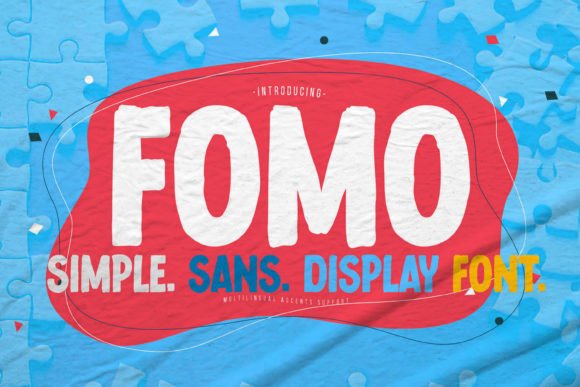
The Power of Fomo: A Modern Font for Bold Branding
In the ever-evolving world of design and branding, typography plays a crucial role in shaping how a brand is perceived. Among the many fonts available, Fomo has emerged as a standout choice for professionals, creators, and entrepreneurs who seek a modern, versatile, and impactful typeface. With its simple yet bold sans-serif style, Fomo offers a unique aesthetic that aligns with contemporary design trends while maintaining a strong visual presence.
As businesses and creatives continue to prioritize visual identity in their branding efforts, the demand for distinctive and functional fonts has never been higher. Fomo not only meets this demand but also sets a new standard for what a modern font can achieve. Its clean lines, balanced proportions, and striking character set make it an ideal choice for a wide range of applications—from logos and posters to business cards and digital content.
What Is Fomo?
Fomo is more than just a font; it's a design statement. Developed with a focus on clarity and impact, Fomo combines the simplicity of a sans-serif typeface with a bold and confident personality. This makes it particularly well-suited for projects that require a strong visual identity without sacrificing readability.
The name "Fomo" itself is a nod to the concept of fear of missing out, a term that has become increasingly relevant in today’s fast-paced digital landscape. While the font is not directly related to this concept, its name reflects the urgency and immediacy that modern audiences often seek in visual communication. In this way, Fomo serves as a metaphor for the need to stand out and make an impression in a crowded market.
Why Fomo Fits Into Modern Design Trends
Typography is a key element of design, and as the industry evolves, so do the preferences of designers and brands. The rise of minimalism, the emphasis on clean aesthetics, and the growing importance of digital-first design have all contributed to the popularity of fonts like Fomo. These trends reflect a broader shift toward simplicity, clarity, and functionality in visual communication.
Fomo aligns perfectly with these trends. Its straightforward design ensures that it works well across various mediums, from print to digital. Whether used in a logo, a website header, or a social media post, Fomo maintains its visual integrity and impact. This versatility makes it a valuable asset for designers looking to create cohesive and professional-looking projects.
Moreover, the font's boldness gives it a sense of authority and confidence—qualities that are highly sought after in branding. In a world where first impressions matter, a font like Fomo can help a brand establish a strong and memorable presence.
How Fomo Meets Changing Needs and Preferences
The design industry is constantly evolving, and with it, the needs and expectations of both designers and end-users. Today’s audiences are more discerning, and they expect visual content that is not only aesthetically pleasing but also easy to read and understand. This shift has led to a greater emphasis on legibility, accessibility, and adaptability in typography.
Fomo addresses these needs by offering a font that is both visually striking and functionally sound. Its clean, uncluttered design ensures that it remains readable even at smaller sizes, making it suitable for a wide range of applications. Additionally, its bold weight provides a sense of prominence, which is essential for headlines, titles, and other attention-grabbing elements.
Another factor contributing to Fomo’s relevance is its ability to adapt to different contexts. Whether used in a high-energy marketing campaign, a sleek product packaging design, or a professional business document, Fomo maintains its visual consistency and impact. This adaptability makes it a go-to choice for designers who want to maintain a cohesive look across multiple platforms and formats.
Practical Applications of Fomo
One of the most compelling aspects of Fomo is its wide range of applications. From logos and branding materials to editorial layouts and digital interfaces, this font can be used in virtually any design project that requires a modern and dynamic look.
For example, in the realm of branding, Fomo can be used to create a strong and memorable identity for a company or product. Its bold and confident style helps convey a sense of professionalism and reliability, which are essential qualities for any brand looking to build trust with its audience.
In advertising, Fomo can be used to grab attention and communicate a message quickly and effectively. Its clean lines and strong presence make it ideal for headlines, call-to-action buttons, and other elements that need to stand out in a busy environment.
When it comes to digital design, Fomo is equally effective. Whether used in a website header, a mobile app interface, or a social media graphic, the font maintains its visual appeal and readability. This makes it a valuable tool for designers working in the digital space, where clarity and impact are paramount.
As the design industry continues to evolve, the demand for fonts that are both functional and visually striking will only grow. Fomo is well-positioned to meet this demand, offering a unique combination of style, clarity, and impact. Whether you're a professional designer, a creative entrepreneur, or a marketer looking to make a strong impression, Fomo is a font worth considering for your next project.